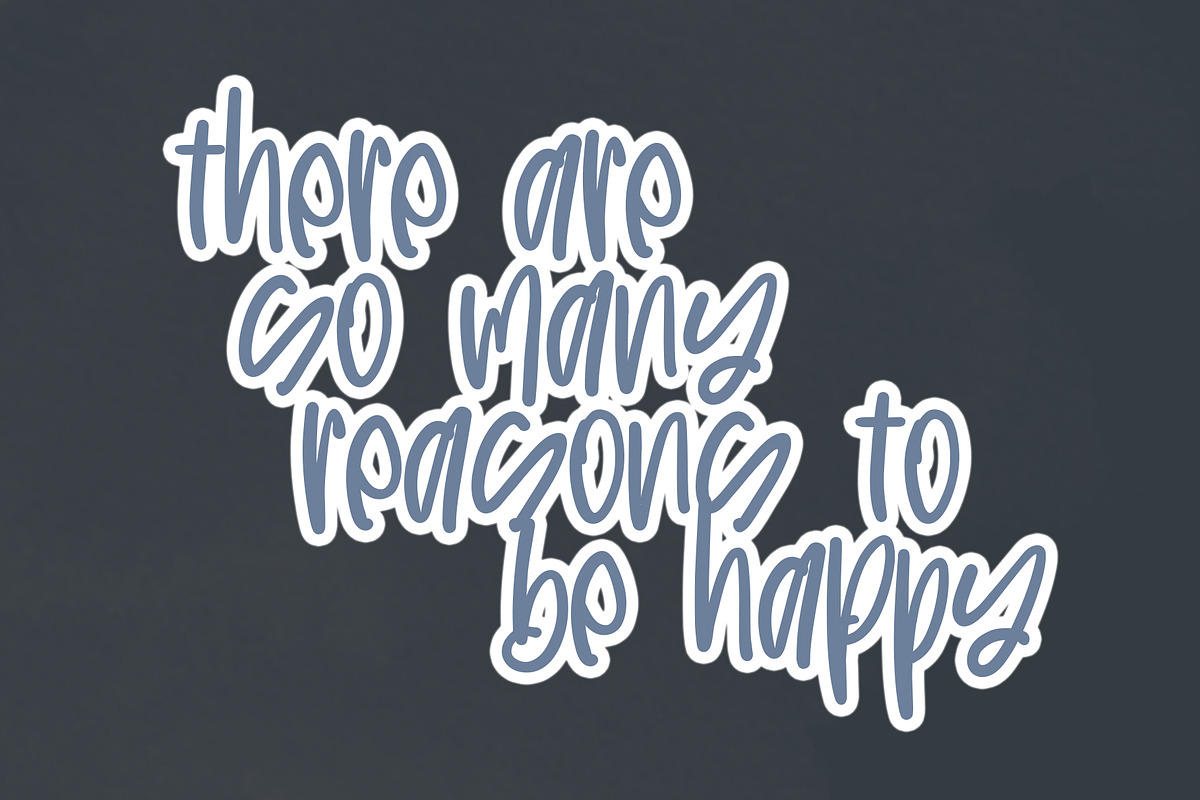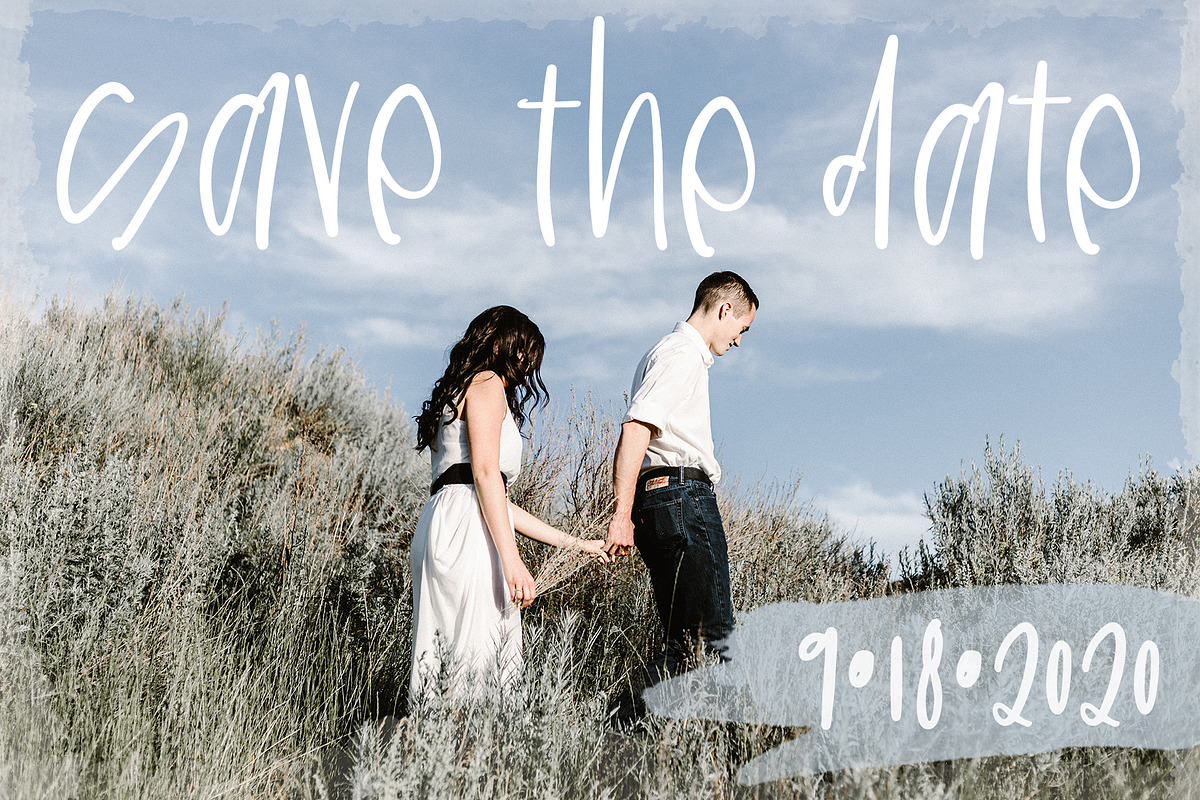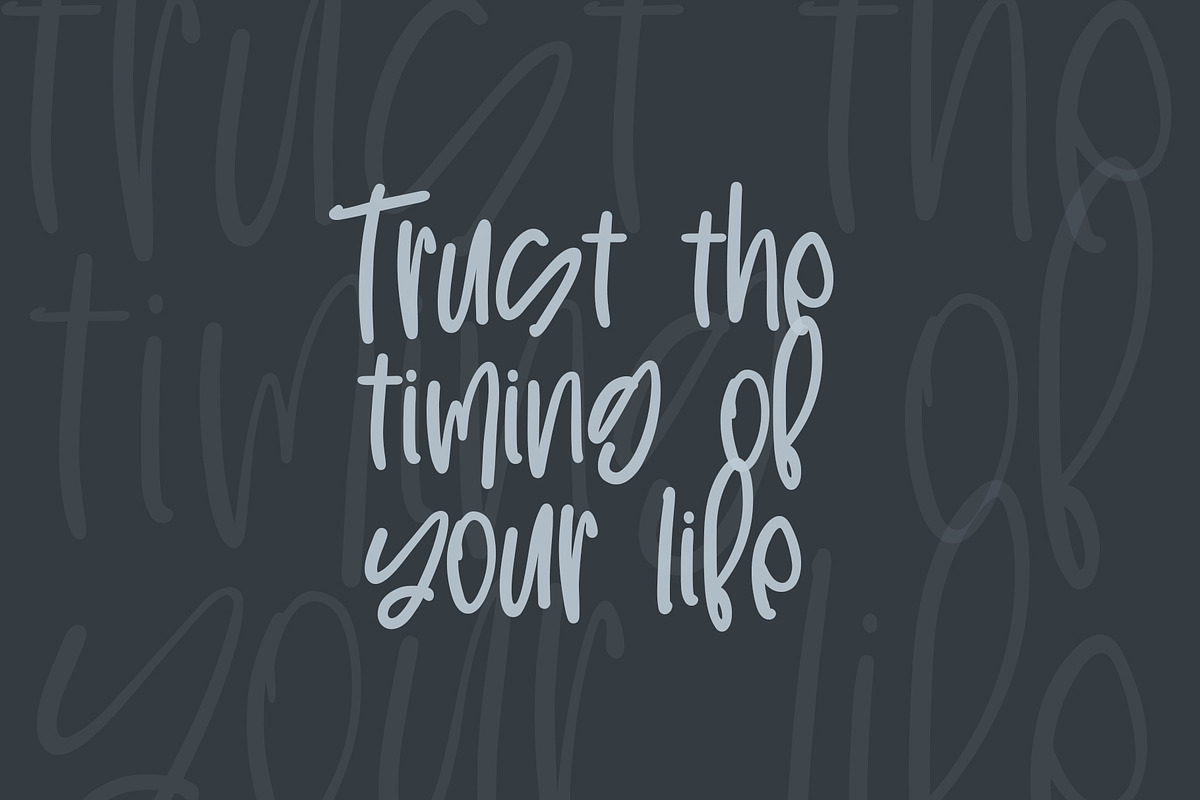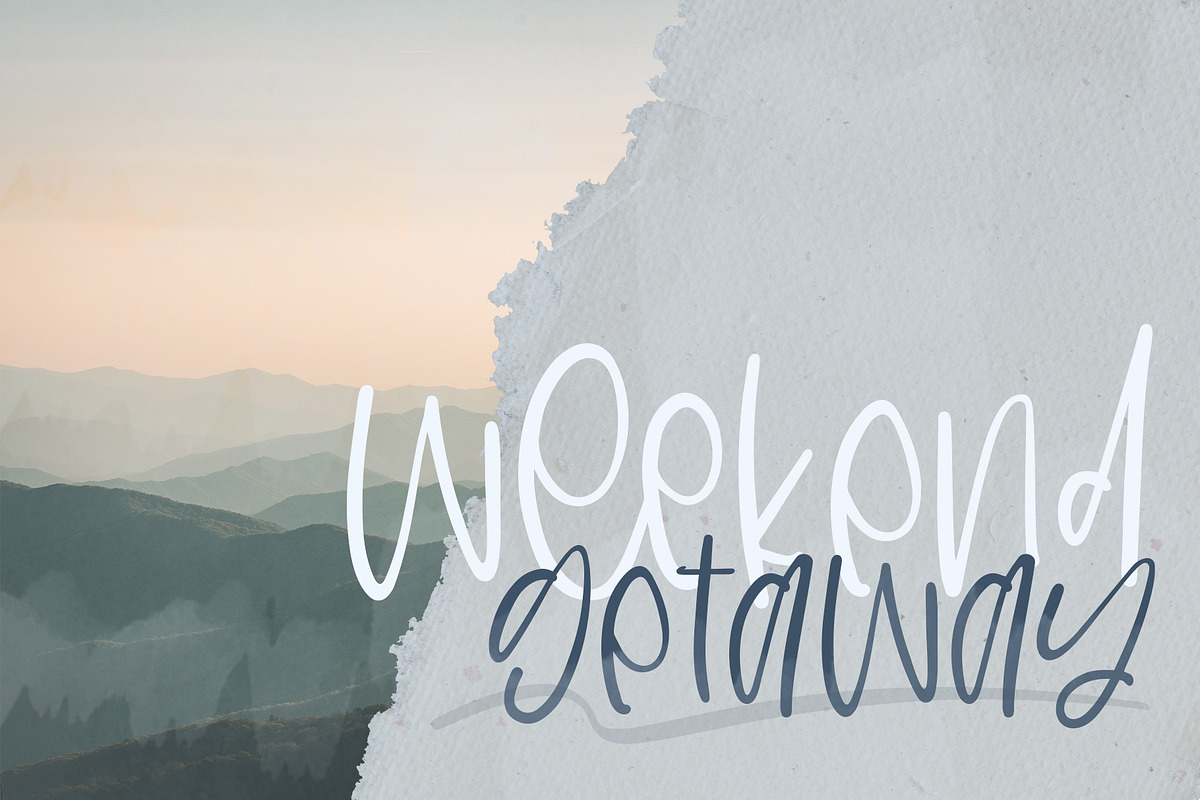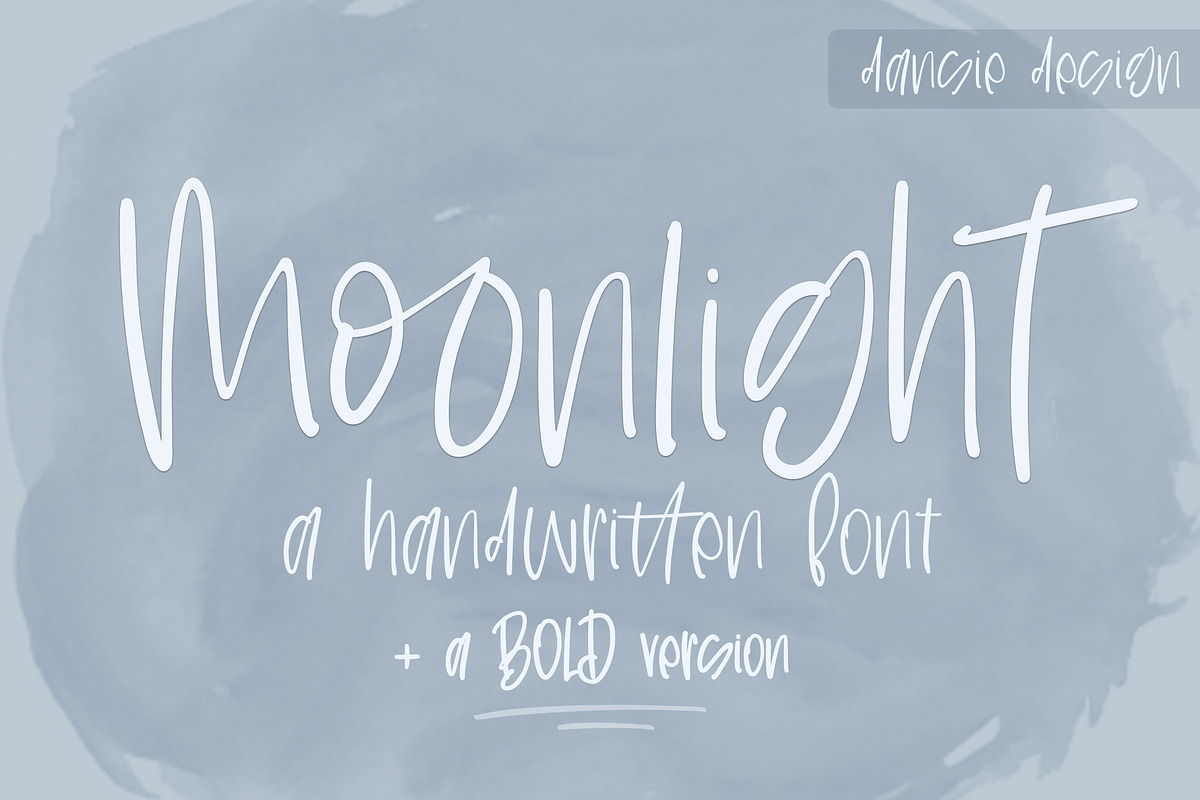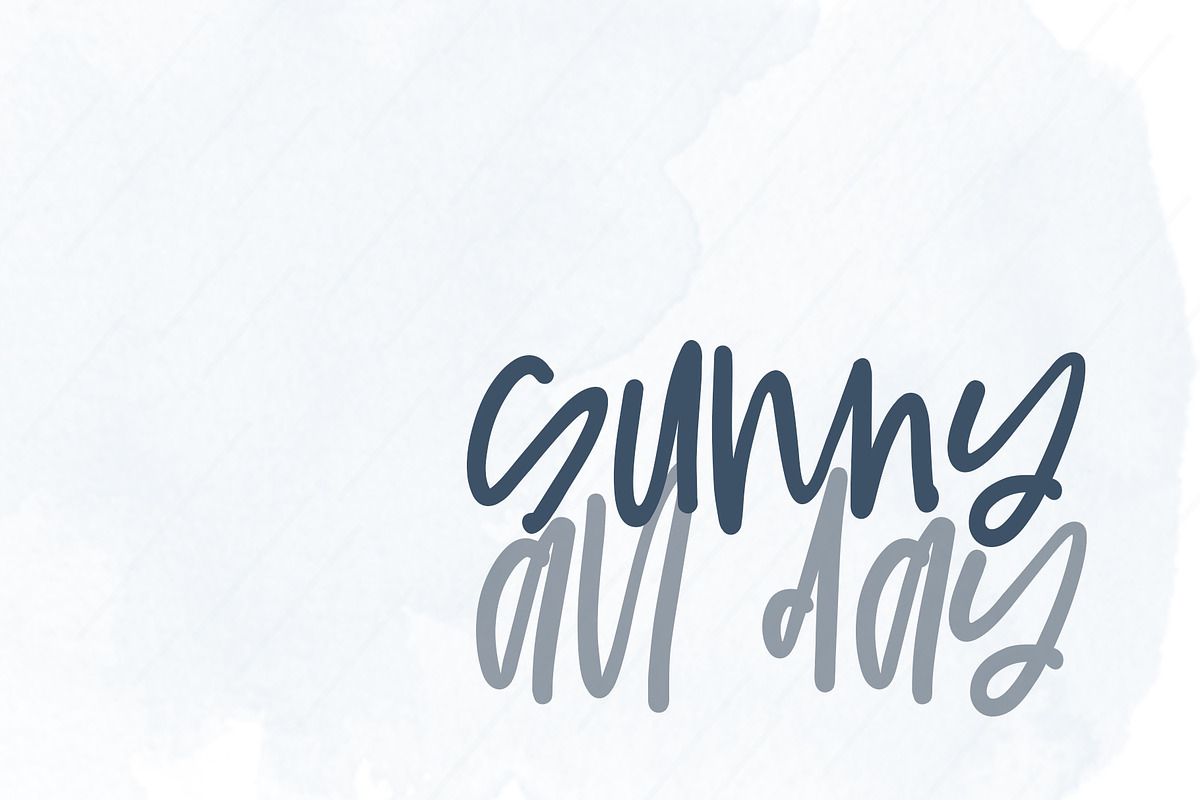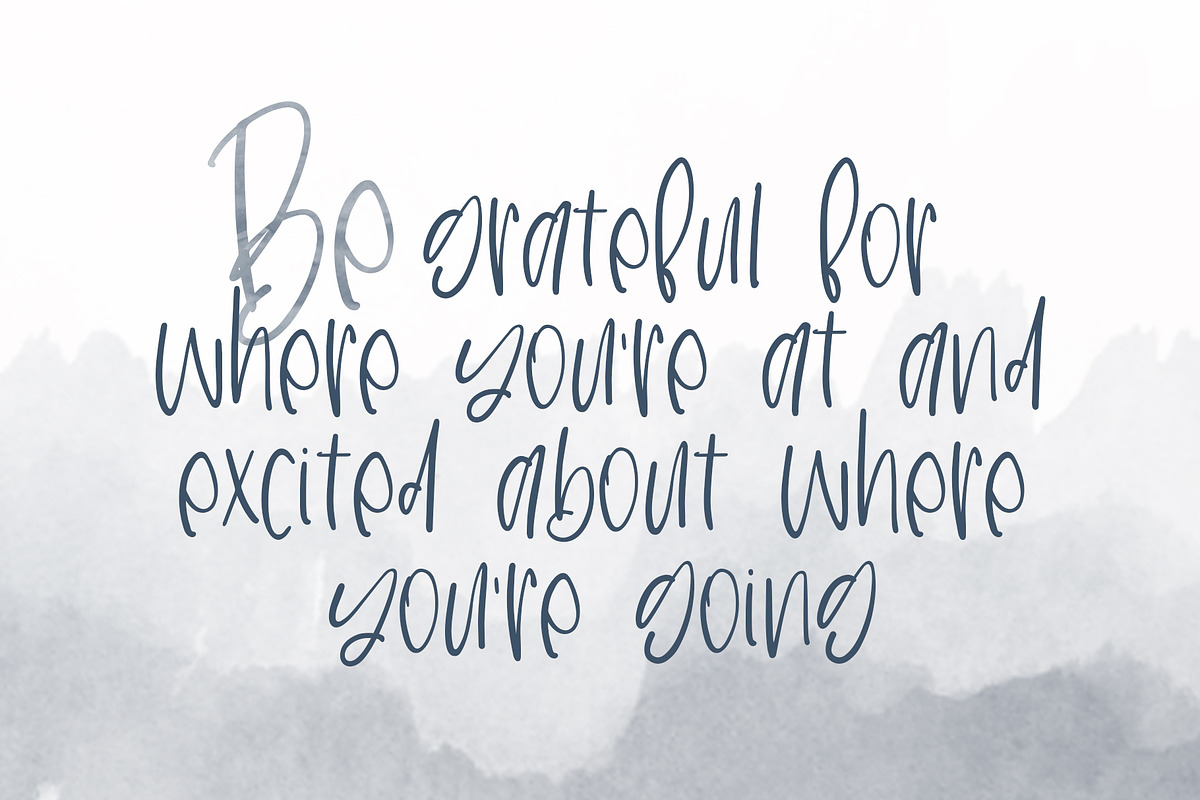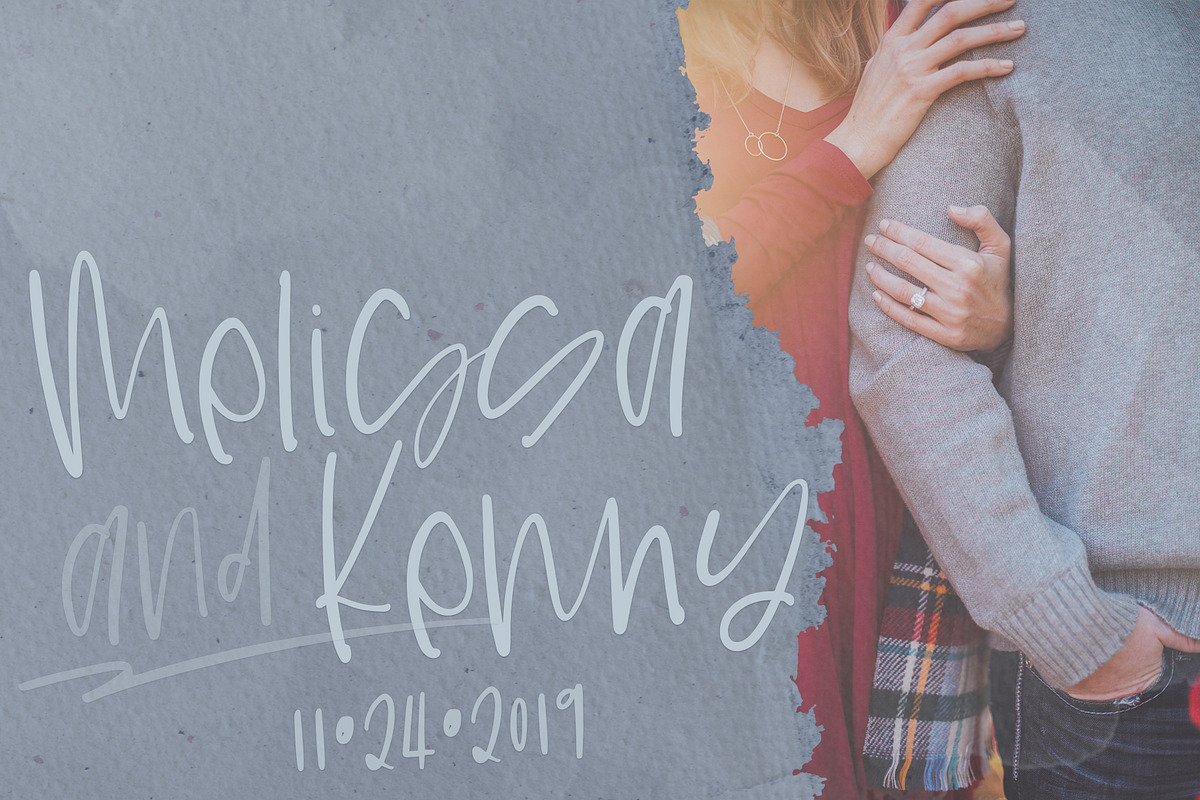
Moonlight Font
This hand-lettered font comes in regular and BOLD! It has a fun and quick hand written look.
Moonlight font is perfect for all your designs and craft projects! This can be used in many ways, including eye catching modern, minimal quotes and designs. This is such a cute font for wedding invitations, Instagram posts, blogs, and more!
There are 14 ligatures included in this font. Ligatures are so great because they make the font feel a little more hand written! The font looks awesome without the ligatures, but they just add a special touch!